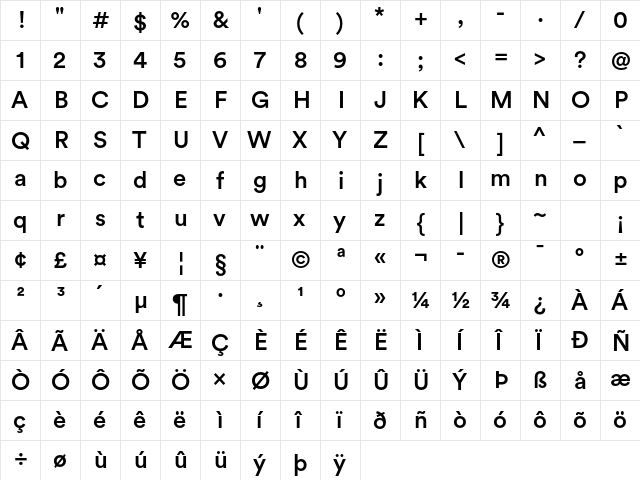
Circular Std Medium
| Foundry | Lineto |
| Designer | Laurenz Brunner |
Design Context for Circular Std Typeface
Circular Std is a composed and adaptable typeface that performs quietly and consistently across a wide range of design contexts.